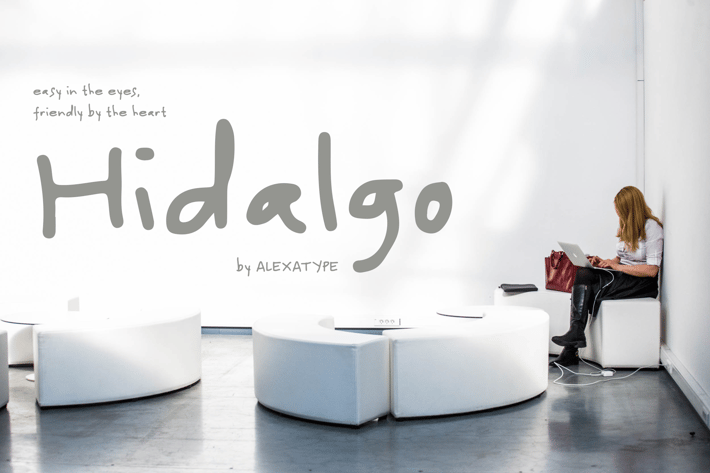
Hidalgo - Friendly Handwriting Font
Hidalgo - Friendly Handwriting
Easy in the eyes, and friendly by the heart.
Hidalgo bring so much calmness in its irregular lines. It also has ligatures for each letters, so that it will maintain the natural flows.